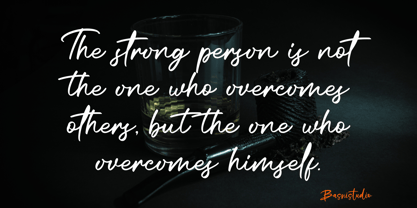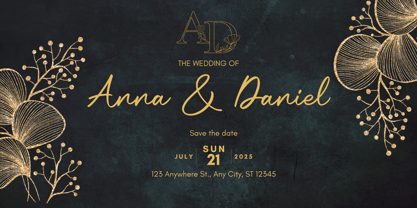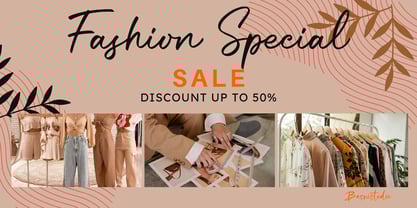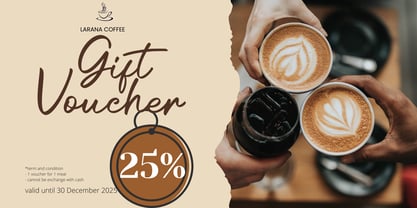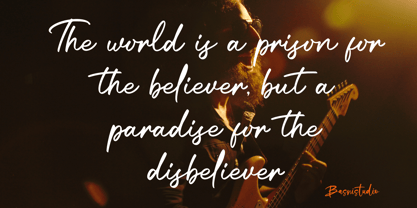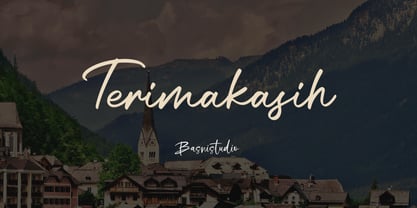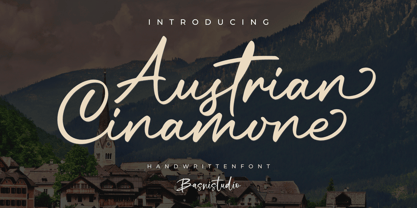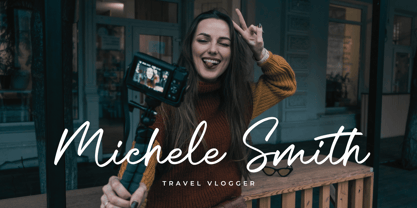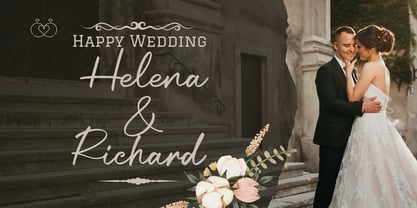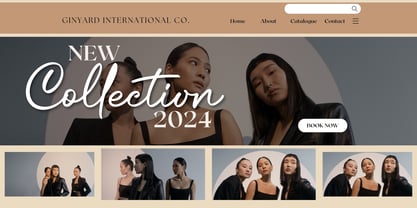
Austrian Cinamone
by Basnistudio
The Austrian Cinamone Font Family was designed by Bery Arisandi and published by Basnistudio. Austrian Cinamone contains 1 styles. More about this family
The Perfect Handwritten Touch for Your Designs
Looking for a font that brings warmth, personality, and authenticity to your projects? Austrian Cinamone is a beautifully crafted handwritten typeface that adds a natural, personal touch to everything from branding and social media to invitations and packaging.
✔ Elegant & Versatile – Perfect for logos, quotes, greeting cards, and more
✔ Authentic Handwritten Feel – Created with real pen strokes for a natural look
Whether you’re building a powerful brand identity or crafting a standout logo, Austrian Cinamone
gives you the creative edge you need.
• Uppercase & lowercase letters
• Ligature & Swashes
• Numbers & punctuation
• Multilingual Support ( Support for 90 languages )